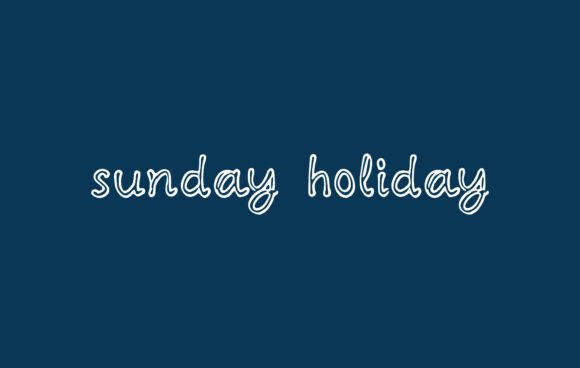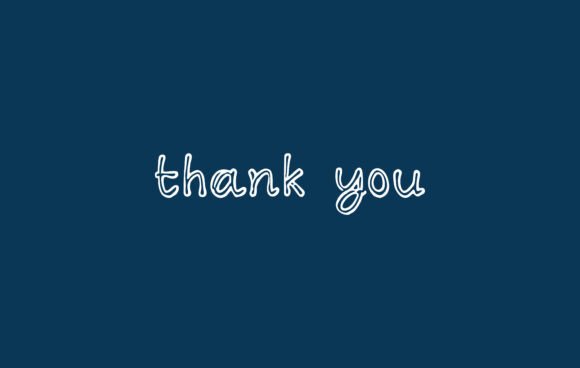
Introduction to Home Beautiful Font
Do you remember the moment when you first saw a design that left you speechless? For me, it was a beautiful wedding invitation with a delicate, handwritten font that seemed to whisper sweet nothings to the recipient. That moment sparked a desire to create something just as special, and that’s when I discovered the Home Beautiful Font.
This charming font is more than just a design element – it’s a high-quality resource that can elevate any creative project. With its authentic handwritten style and romantic touch, it’s perfect for designers looking to add a personal and emotional connection to their work. Whether you’re creating magazine headlines, social media graphics, or wedding invitations, the Home Beautiful Font is a valuable asset that can take your designs to the next level.
Key Features of Home Beautiful Font
- High-quality design resource with a wide range of stylish and elegant font styles, perfect for creative projects.
- Transparent background, allowing for easy layering and blending with other design elements.
- Unique characteristics include swashes, flourishes, and ligatures, adding a touch of sophistication to any design project.
- Can be used for a variety of creative projects, including branding, packaging, and editorial design.
Honest Review: Home Beautiful Font
As a designer, I’m always on the lookout for high-quality design resources that can elevate my creative projects. Recently, I came across the Home Beautiful Font, and I’m excited to share my honest review with you.
What works well: ✨ The font is incredibly versatile, making it perfect for a wide range of creative projects, from home decor and interior design to fashion and lifestyle. The design is sleek and modern, with a clean and minimalistic aesthetic that’s sure to impress. The transparent background option also makes it easy to layer and customize the font to fit your design needs.
Limitations: ⚠️ While the Home Beautiful Font is a great addition to any design library, it’s worth noting that the font family is relatively small, with only a few weights and styles to choose from. Additionally, some users may find the font to be a bit too generic, lacking the unique character that some designers crave.
Overall, I’d say the Home Beautiful Font is a solid choice for designers looking for a high-quality, easy-to-use font that’s perfect for a wide range of creative projects. With its sleek design and transparent background option, it’s sure to become a staple in your design library.